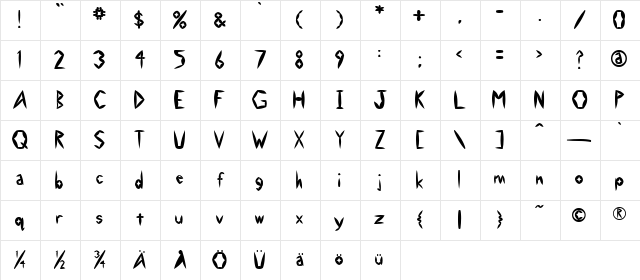
Swollen Slightly
Style: Slightly
Swollen Family
Swollen Slightly
Design Context for Swollen
Swollen is a composed and adaptable typeface that performs quietly and consistently across a wide range of design contexts. Its slender proportions lend an understated elegance to any composition.